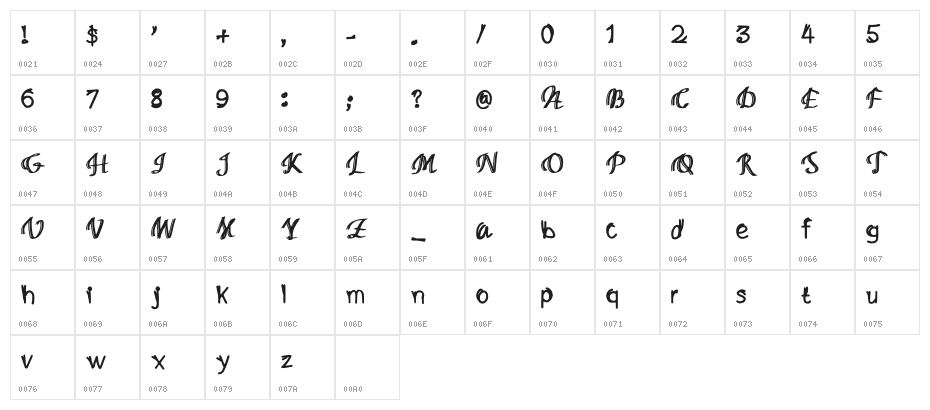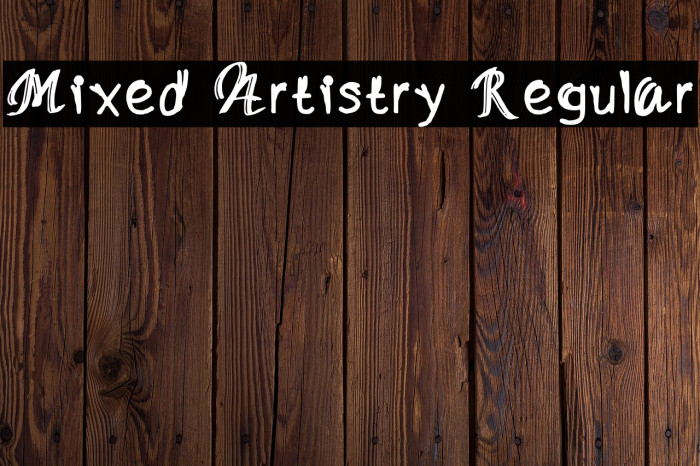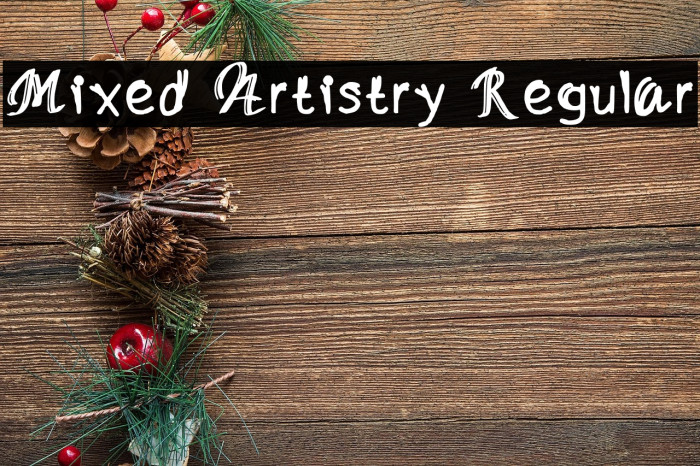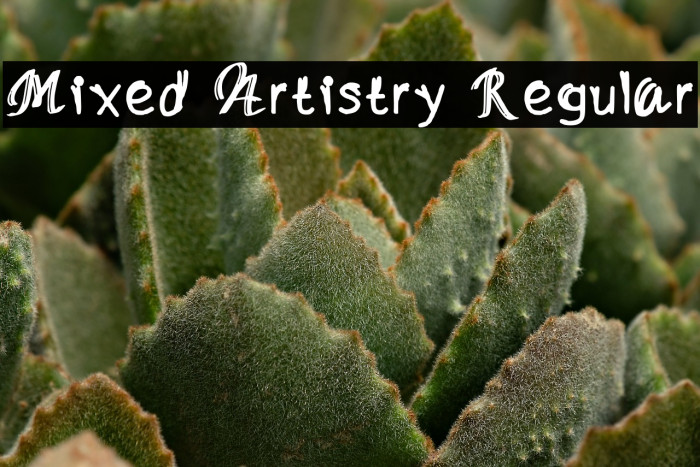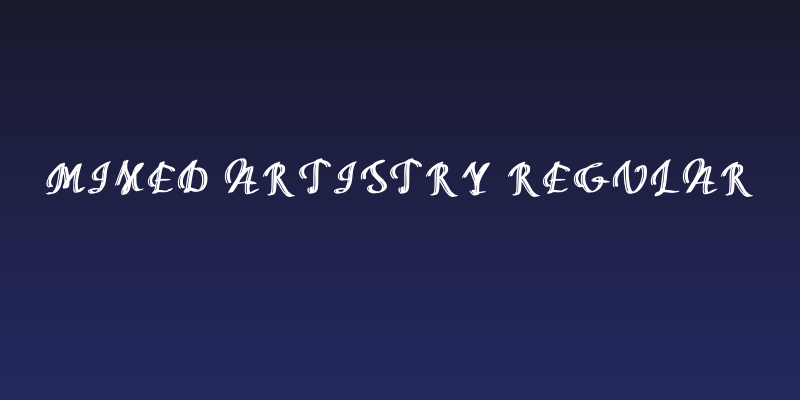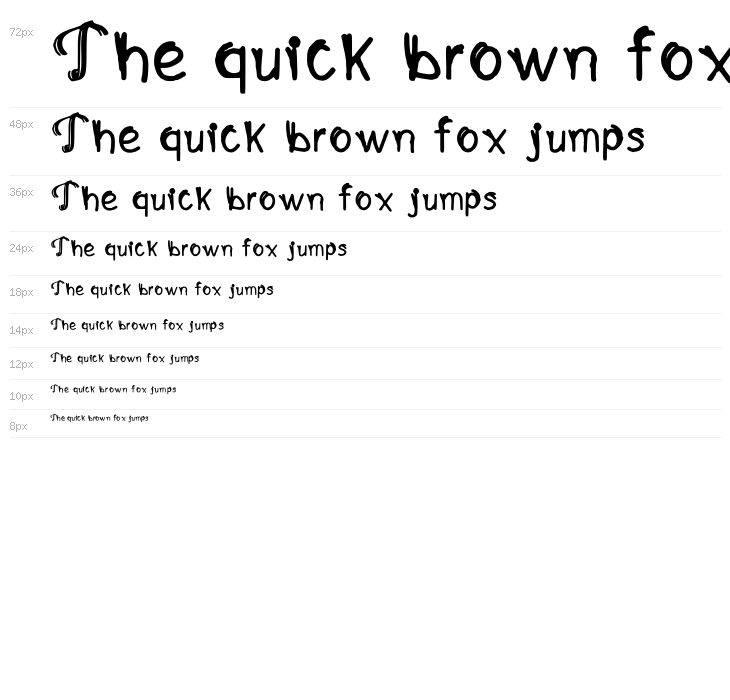
Mixed Artistry Regular Font
Mixed Artistry Regular Description
This font features a dynamic and artistic style, blending elements of calligraphy with a modern twist. The uppercase letters exhibit a flowing, cursive design with varying stroke widths that add a sense of movement and elegance. The lowercase letters maintain a playful yet sophisticated appearance, with rounded forms and smooth curves. Numbers are bold and slightly exaggerated, making them stand out. Special characters are creatively designed, complementing the overall artistic theme. This font is ideal for projects that require a touch of creativity and flair, such as invitations, artistic branding, or unique logo designs.
| Use Case | Headlines, Logos, Artistic projects |
| Proposed Projects | Ideal for invitations, artistic branding, unique logos, and creative designs. |